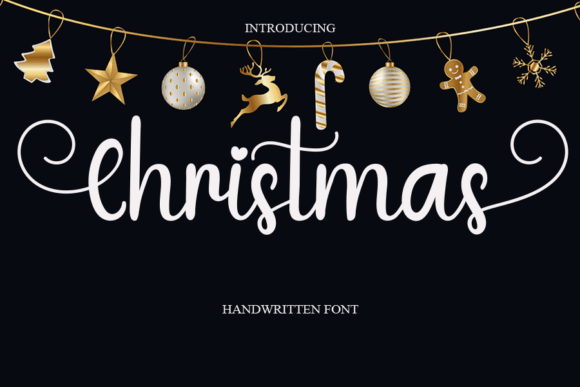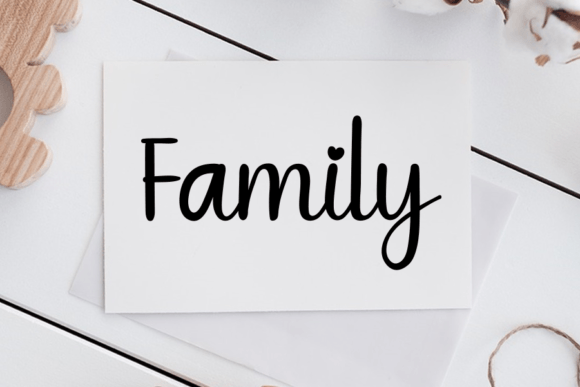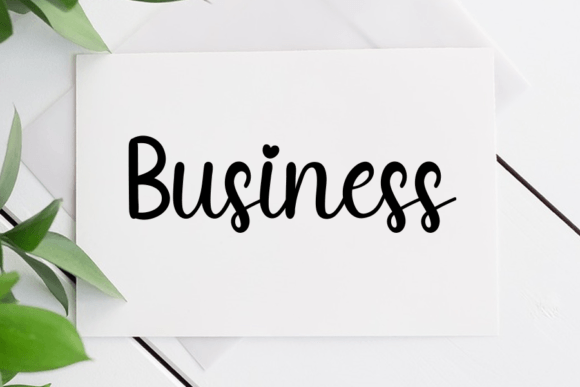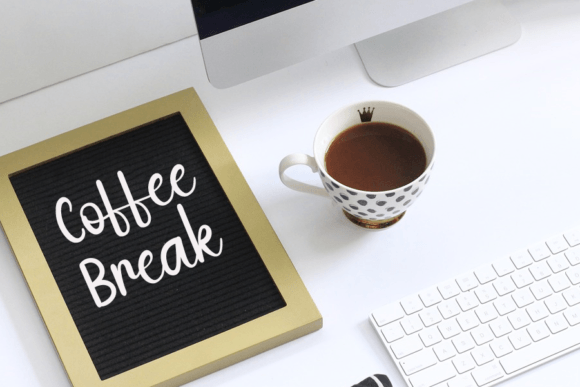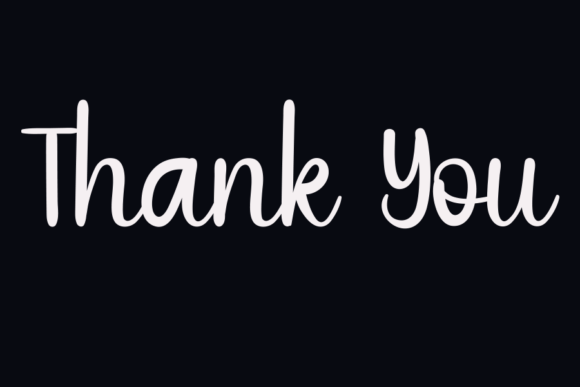
A Spark of Holiday Magic
As I sat at my desk, surrounded by twinkling lights and the soft hum of holiday music, I felt a sudden surge of creativity. I wanted to capture the essence of Christmas in a single, elegant font – something that would make my designs feel like a warm hug on a cold winter’s night.
| 👤 Author | cans studio |
That’s when I discovered the magic of Christmas Font. This beautiful, handwritten font is more than just a typeface – it’s a way to infuse your designs with the charm and elegance of the holiday season. Whether you’re creating wedding invitations, thank you cards, or simply want to add a touch of whimsy to your social media posts, Christmas Font is the perfect addition to your design arsenal.
Key Features of Christmas Font
- Font Family: Christmas Font is a unique, decorative font designed specifically for the holiday season. It features a festive, hand-drawn style with bold lines and ornaments.
- Unique Characteristics: Christmas Font features a range of ornaments and decorations, including snowflakes, holly leaves, and stars, which can be used to create visually appealing and festive designs.
Designer Review: Christmas Font
Overall, I found the Christmas Font to be a decent addition to any holiday-themed design project. ✨ The font’s playful and whimsical nature makes it perfect for creating festive invitations, social media posts, and other promotional materials.
Here are some of the things I liked about the font:
- ✨ The font’s bold and eye-catching style makes it great for grabbing attention.
- ✨ The font’s versatility allows it to be used in a variety of design projects, from print to digital.
- ✨ The font’s festive design elements, such as the snowflakes and holly, add a fun touch to any project.
However, there are some limitations to the font that I’d like to point out:
- ⚠️ The font’s design can feel a bit overwhelming or cluttered, especially when used in large quantities.
- ⚠️ The font’s limited character set may make it difficult to use for longer blocks of text.
- ⚠️ The font’s design may not be suitable for all types of holiday-themed projects, such as more serious or formal designs.
Overall, I’d give the Christmas Font 3.5 out of 5 stars. While it’s a fun and festive font, its limitations may make it less suitable for some design projects.
Use Christmas Font to add a festive touch to your designs. You can use it to create holiday-themed invitations, greeting cards, and social media posts.
Christmas Font is perfect for:
- Holiday-themed invitations and greeting cards.
- Social media posts and ads.
- Holiday-themed websites and blogs.